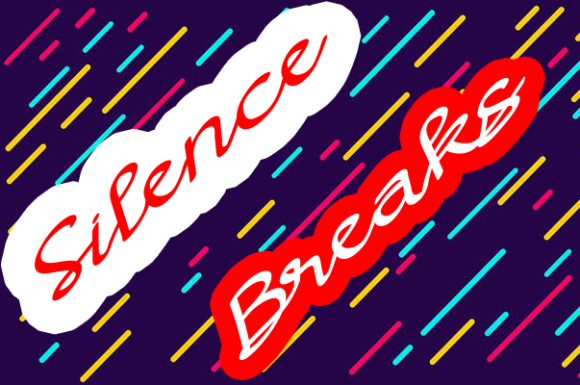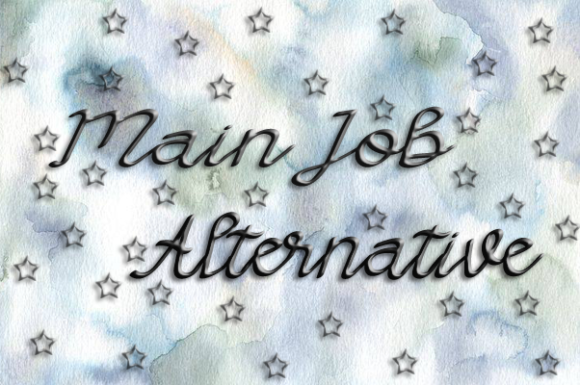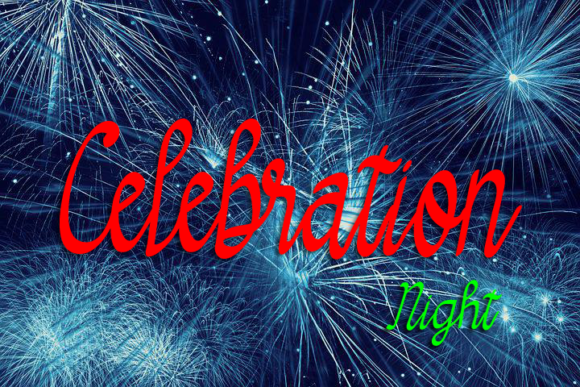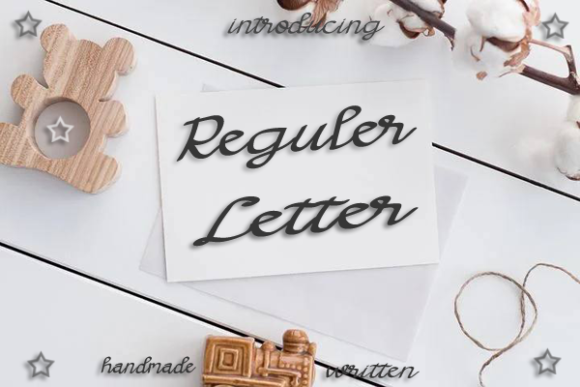
Introduction to Reguler Letter Font
Reguler Letter is an elegant script font with a contemporary atmosphere and impeccable form, inspired by timeless classic calligraphy.
Not too thin and not too thick, balanced and varied, this font was designed to enhance the beauty of your projects .
Reguler Letter Font offers exceptional quality and versatility, making it a valuable addition to your design toolkit. Whether you’re creating for personal projects or commercial use, Reguler Letter Font delivers professional results.